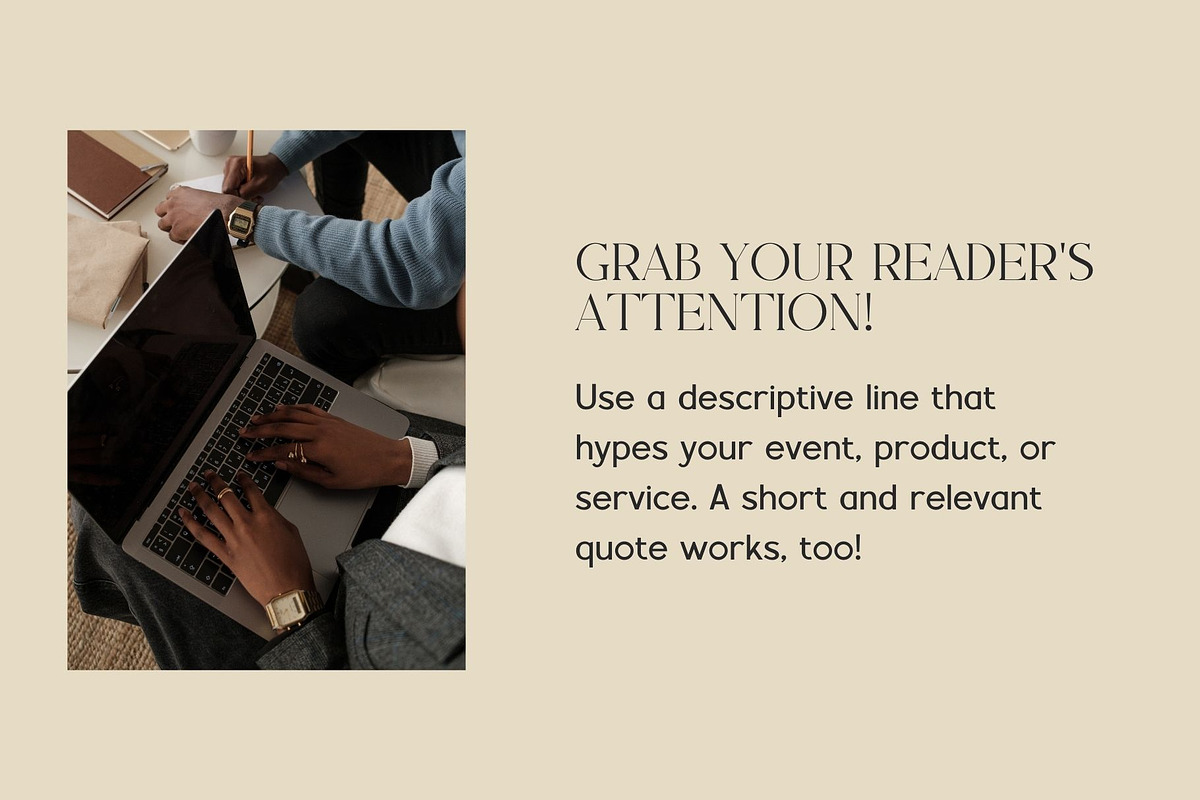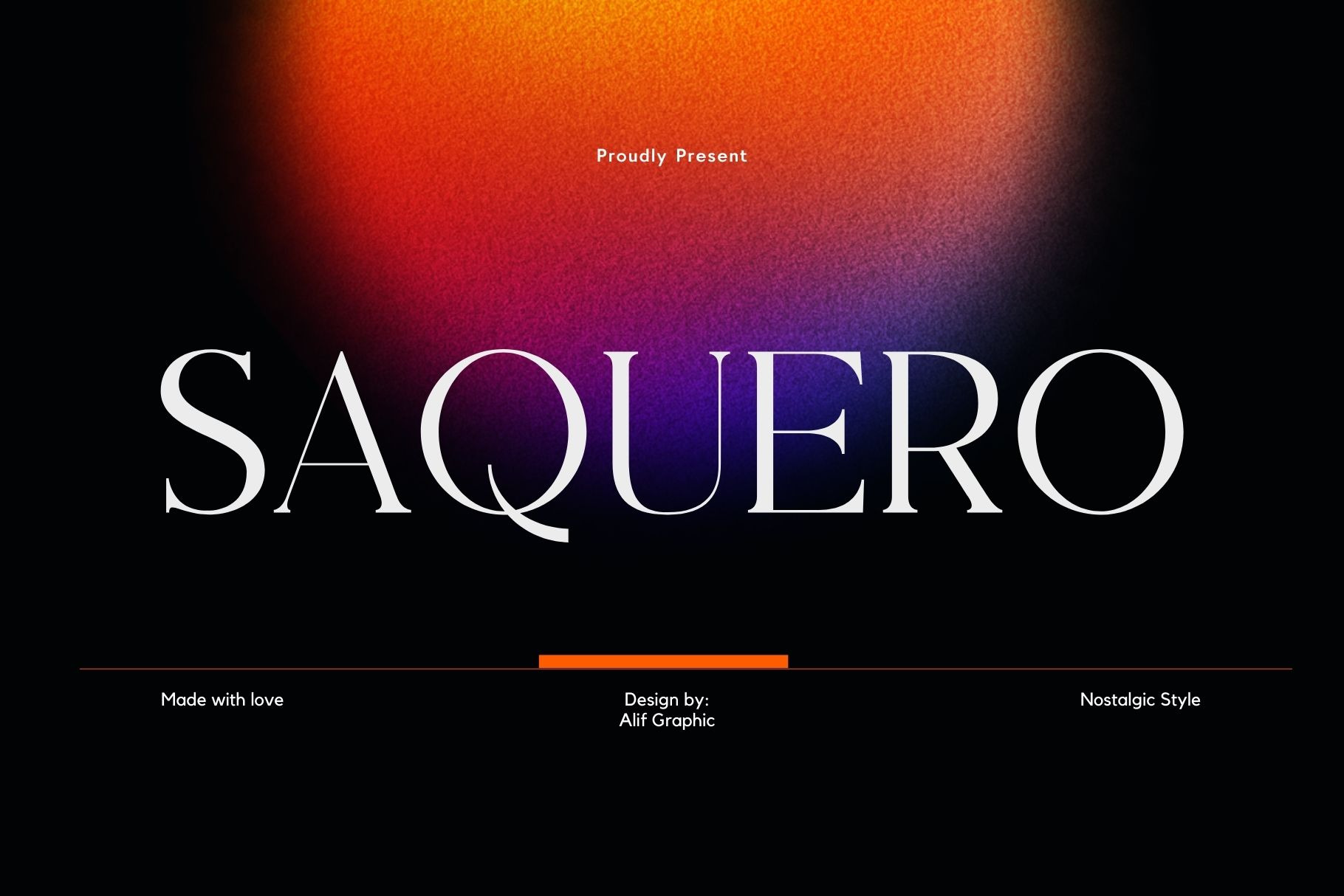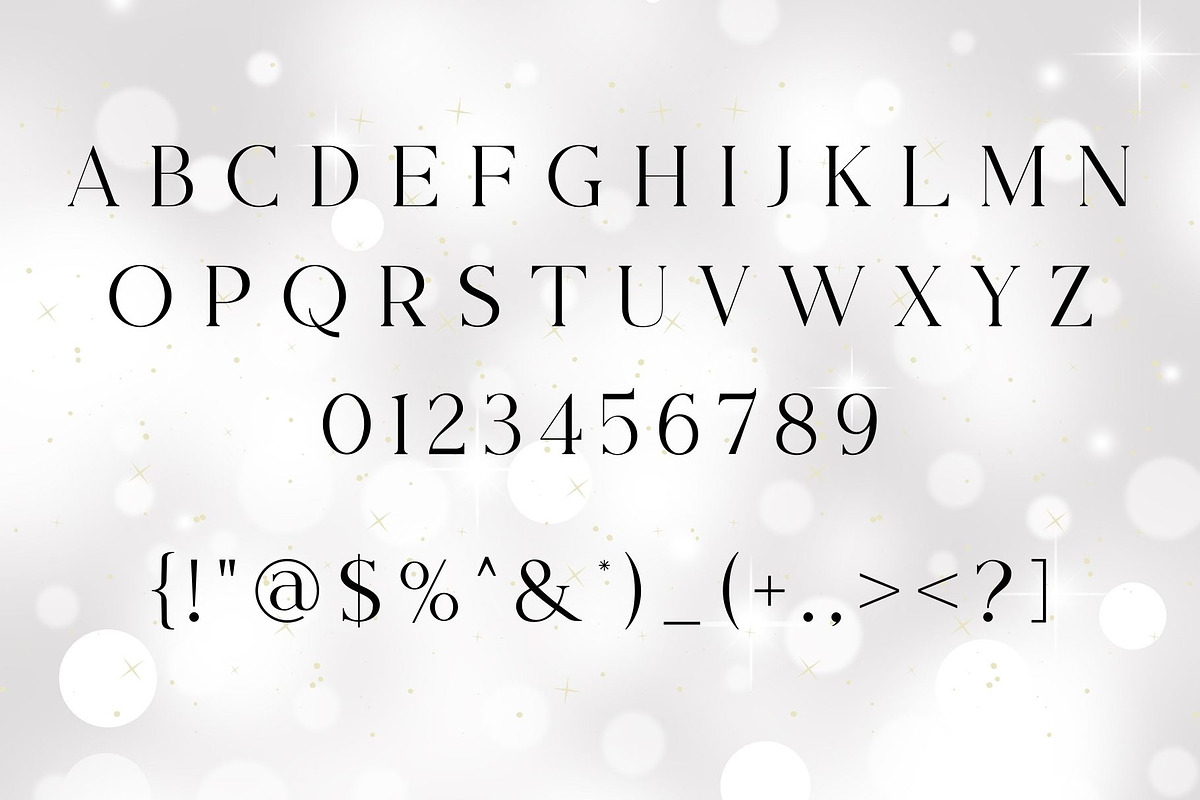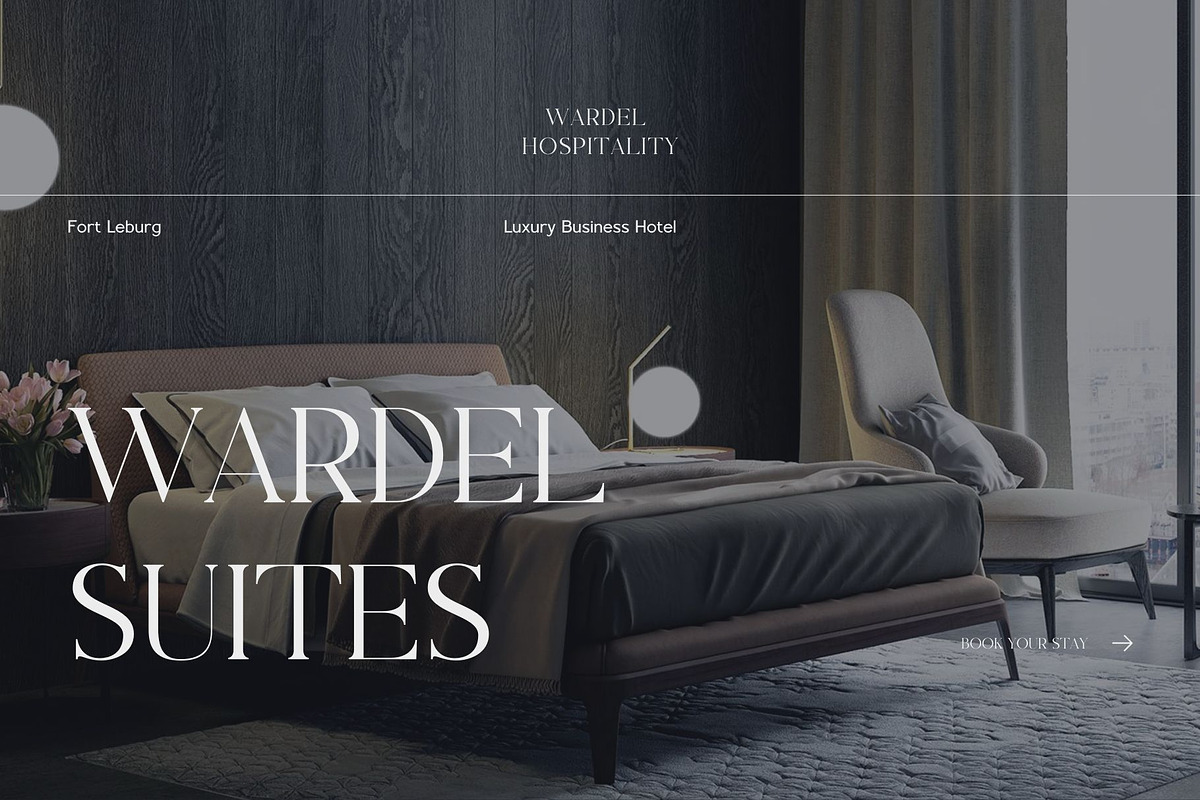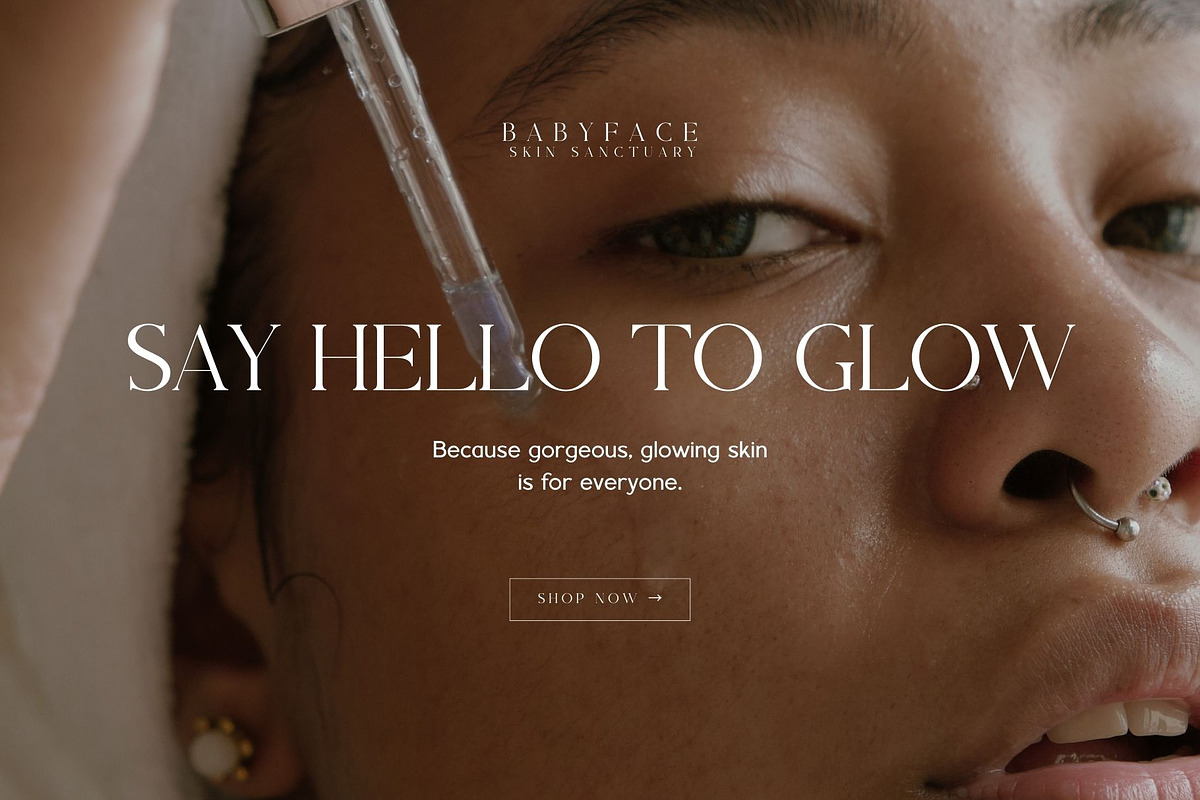
Saquero - Modern Serif Typeface
Introducing 'Saquero' Font:
Introducing the 'Saquero' font, a collection of beautifully crafted letters designed to elevate your writing experience. With its neat and modern lettering, this font strikes the perfect balance between contemporary aesthetics and timeless elegance, making it ideal for a variety of writing needs. Our top priority is the meticulous tidiness in crafting each letter, ensuring a refined appearance that brings a touch of sophistication to your projects.
Ideal for:
- Modern Designs
- Beauty and Fashion
- Elegant Creations
- Versatile Applications
- Web Designs
- Ready for Creative Expression
- Immaculately Crafted Letters